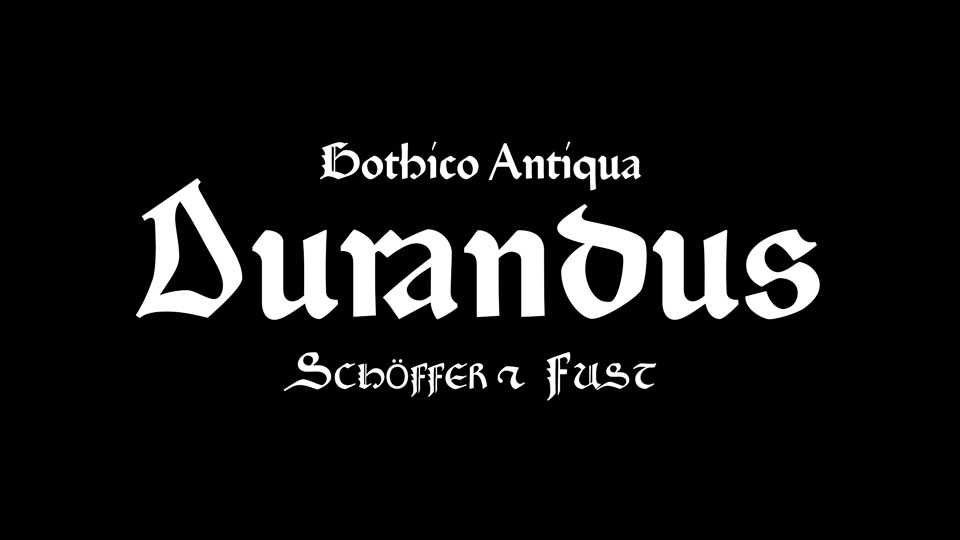
Download Durandus font, Gotico-Antiqua cut in Mainz by Peter Schöffer & Johann Fust for Guillaume Durand’s Rationale Divinorum Officorum in 1459. The book displays two sizes, the smaller 92G for the main text and the bigger and more contrasted 118G used only for the colophon and later for the famous 48-line Bible in 1462.